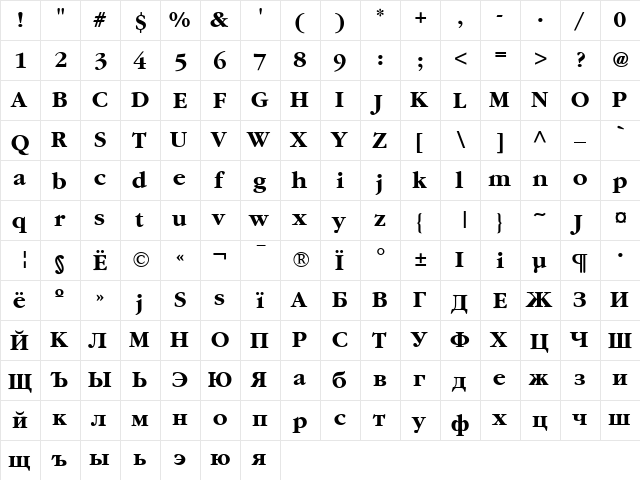
AGGaramondCyr Bold
Design Context for AGGaramondCyr Typeface
AGGaramondCyr takes a measured approach to typography — its balanced proportions and neutral character make it a reliable workhorse for both digital and print work. The heavy weight commands attention and anchors typographic hierarchies.